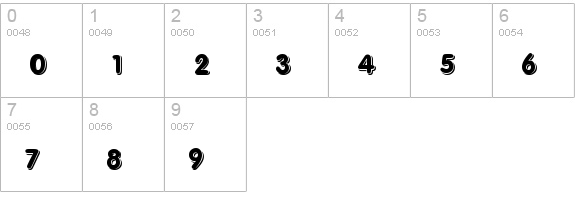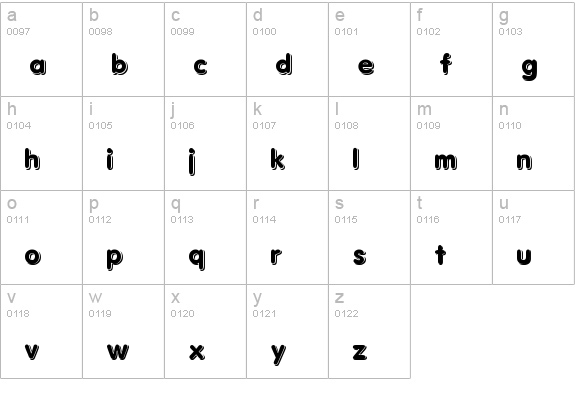
Introducing the mesmerizing world of 3D font, where typography transcends the boundaries of two-dimensional space and leaps into a realm of depth and dimensionality. This extraordinary font style takes your words and transforms them into captivating works of art, adding a whole new level of visual impact to any project. With its intricate and innovative design, 3D font brings a refreshing twist to the world of typography. Each letter is meticulously crafted to exude a sense of depth and realism, creating an illusion that makes them appear as if they are jumping out of the page. The carefully engineered angles and shadows give this font an almost tangible quality, enticing the viewer to reach out and touch each letter. But what makes this font truly remarkable is that it is not only visually stunning, but also freely available to download at FontsMarket.com. Yes, you read that right – it's absolutely free! This means that you can now take your design projects to new heights without having to worry about breaking the bank. Whether you're working on a logo, a poster, a website, or any other creative endeavor, 3D font is the perfect choice to make your words come to life. Its versatility allows it to seamlessly integrate into various design styles, from modern and edgy to elegant and sophisticated. The possibilities are endless, and with this font in your toolkit, your creative visions will soar to new heights. So why wait? Embrace the power of 3D font today and unlock a world of visual possibilities. Download it for free at FontsMarket.com and witness firsthand how this font can elevate your designs to a whole new dimension. Get ready to captivate your audience and leave a lasting impression with the stunning beauty of 3D font.